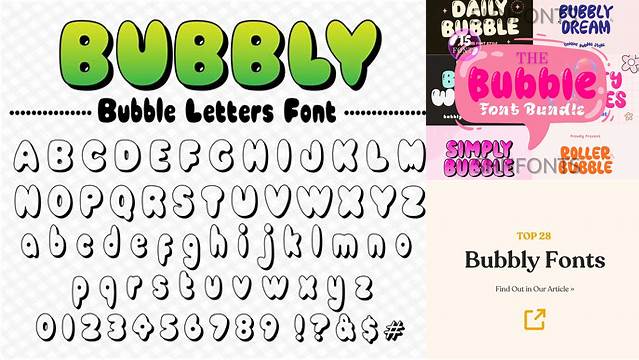
Hey guys! Ever wanted to add a touch of fun and playfulness to your designs? Look no further! In this article, we're diving deep into the world of bubbly fonts available at www.1001fonts.com. We’ll explore various aspects, from what makes a font “bubbly” to how you can use them effectively in your projects. So, buckle up and let’s get started!
1. What Are Bubbly Fonts?
Bubbly fonts, also known as cartoon fonts or rounded fonts, are typefaces characterized by their soft, rounded edges and playful appearance. These fonts often evoke a sense of joy, whimsy, and informality, making them ideal for designs targeting children, creative projects, and anything that needs a lighthearted touch. Bubbly fonts distinguish themselves from more formal fonts through their distinct character shapes and overall friendly vibe. Consider them the polar opposite of serious, serif fonts that you might find in academic papers.
These fonts are not just about aesthetics; they communicate a feeling. They say, "Hey, this is fun!" which is why they are a fantastic choice for logos, posters, and even website headers where you want to make a strong, positive first impression. Furthermore, bubbly fonts can be surprisingly versatile. While they shine in children's books and party invitations, a carefully chosen bubbly font can also add a unique twist to branding for businesses that want to appear approachable and innovative. The key is to select a font that aligns with your specific message and target audience, ensuring that the bubbly nature enhances rather than detracts from the overall design.
When exploring bubbly fonts, you'll notice a wide range of styles, from ultra-rounded, almost balloon-like letters to slightly softened versions of more traditional fonts. This variety allows you to find the perfect balance between playfulness and readability. For instance, a very rounded font might be excellent for a logo, while a slightly less pronounced bubbly font could be better suited for body text in a brochure. Also, keep an eye out for fonts that include fun extras like swashes, alternates, or decorative elements, as these can add even more personality to your designs. Ultimately, the goal is to choose a font that not only looks great but also enhances the overall message and emotional impact of your project.
On the other hand, premium bubbly fonts typically offer a more comprehensive set of features and a higher level of quality. These fonts often include a wider range of characters, multiple weights and styles, and advanced typographic features like ligatures and alternates. Premium fonts are also more likely to come with a commercial license, allowing you to use them for a variety of projects without worrying about copyright issues. Investing in premium fonts can be a great way to elevate your designs and ensure that you have access to the tools you need to create professional-looking work. Also, premium font designers often provide better support and updates, ensuring that your fonts remain compatible with the latest software and operating systems. When deciding between free and premium fonts, consider the scope of your project, your budget, and the level of quality you require. If you're working on a small, personal project, a free font might be perfectly adequate. But if you're creating designs for clients or need a font with specific features, a premium option is likely the better choice.
4. Using Bubbly Fonts in Logo Design
Bubbly fonts can be incredibly effective in logo design, especially for brands that want to convey a sense of fun, friendliness, and approachability. When using a bubbly font for a logo, it's crucial to consider the overall brand identity and target audience. A bubbly font might be perfect for a children's clothing store or a party supply business, but it might not be the best choice for a law firm or a financial institution. The key is to find a font that aligns with the brand's values and personality.
One of the advantages of using a bubbly font in a logo is that it can make the brand more memorable and recognizable. The soft, rounded shapes of the letters are visually appealing and can help the logo stand out from the competition. However, it's essential to use the font judiciously and avoid overwhelming the design. A simple, clean logo with a well-chosen bubbly font can be much more effective than a complex logo with a busy font. Also, consider the scalability of the logo. Will it look good at both small and large sizes? Some bubbly fonts can become illegible when scaled down, so it's important to test the logo at various sizes to ensure that it remains readable. Furthermore, think about the color palette. Bubbly fonts often pair well with bright, cheerful colors, but it's important to choose colors that complement the font and reinforce the brand's message. A well-designed logo with a bubbly font can be a powerful tool for attracting customers and building brand awareness.
The first step in creating your own bubbly font is to sketch out your letterforms. Start with the basic shapes and then add the rounded edges and playful details that characterize bubbly fonts. Experiment with different styles and variations until you find a look that you like. Once you're happy with your sketches, you can import them into your font-creation software and begin digitizing them. This involves tracing your sketches with the software's drawing tools and adjusting the curves and lines to create smooth, professional-looking letterforms. Also, consider the spacing between the letters. Proper spacing is essential for creating a readable and visually appealing font. Adjust the kerning (the space between individual letters) to ensure that the letters flow smoothly together. Furthermore, think about adding extra characters like numbers, symbols, and punctuation marks. A complete font should include all the characters that you need for your designs. Finally, test your font in different contexts to see how it looks. Use it in headlines, body text, and logos to ensure that it works well in a variety of applications. Creating your own bubbly font can be a challenging but rewarding experience. It allows you to express your creativity and create a unique font that perfectly suits your needs.